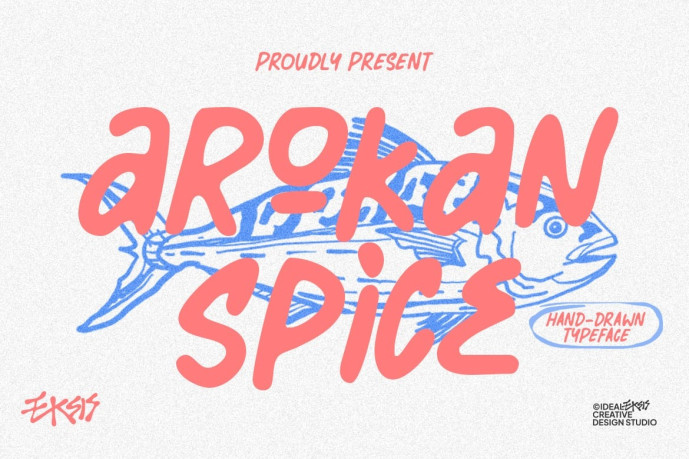
Arokan Spice Font
Designer: Idealx
Arokan Spice Font – This typeface features thick, monolinear strokes with soft, rounded terminals that evoke a friendly and approachable aesthetic. The letterforms are characterized by their organic, slightly irregular shapes, giving them a distinct hand-crafted quality.